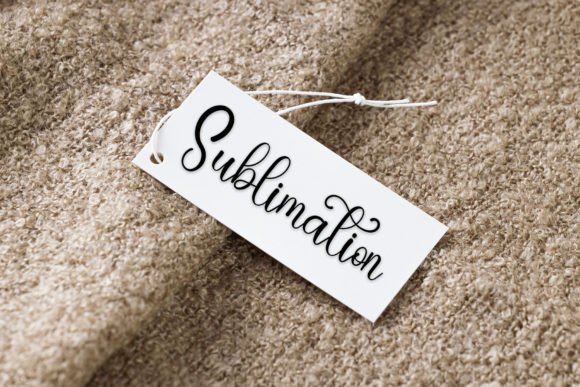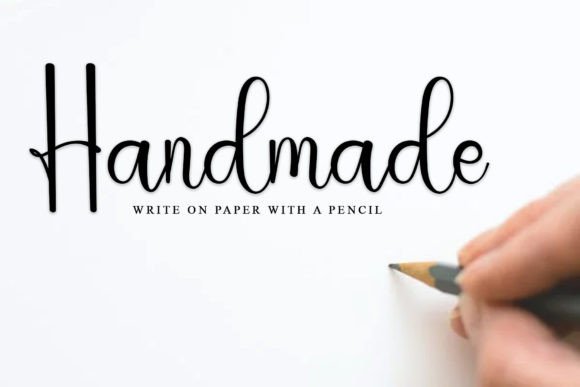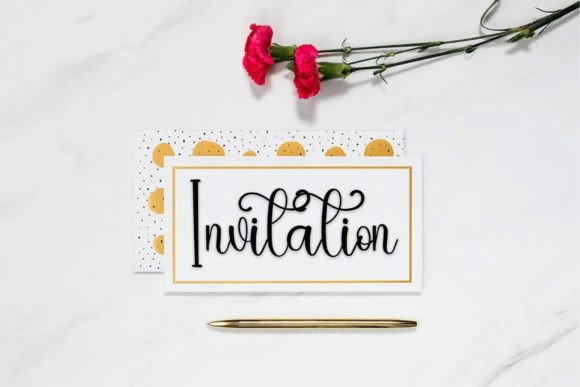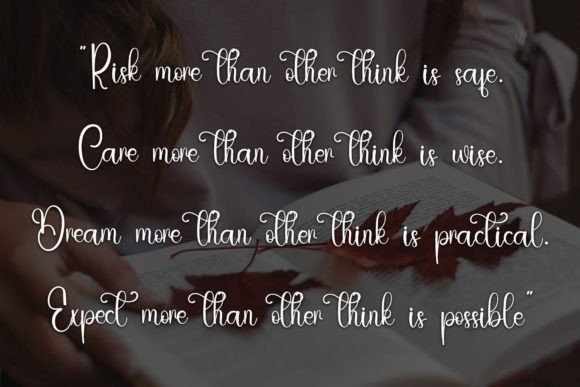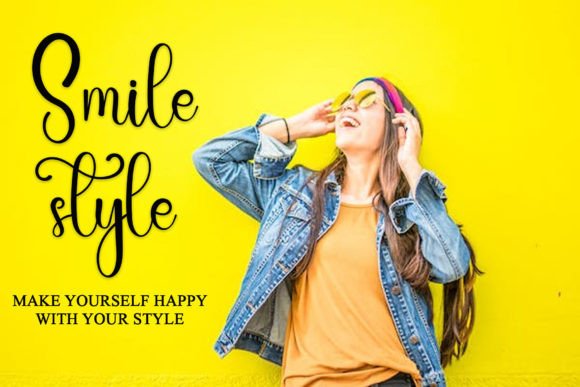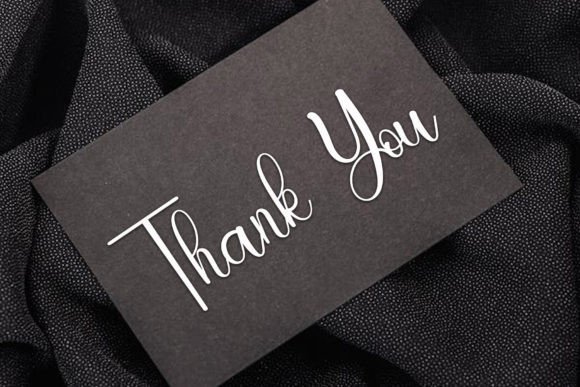
Discover the Charm of Autumn Break Font: Elevate Your Designs with Elegance
Are you on the hunt for a font that exudes sophistication, elegance, and a touch of modern flair? Look no further than the Autumn Break Font, a stunning handwritten typeface that is sure to capture your heart. Designed with meticulous attention to detail, this exquisite font seamlessly blends classic calligraphic influences with a contemporary twist, making it a perfect addition to your design arsenal.
The Essence of Autumn Break Font
Autumn Break Font is more than just a typeface; it’s an experience. Its elegant, flowing lines and carefully crafted letterforms evoke a sense of luxury and refinement, making it ideal for a wide range of design projects. Whether you’re working on a branding campaign, a wedding invitation, or a packaging design, this font is sure to bring a level of sophistication and style that sets your work apart.
What Makes Autumn Break Font Stand Out?
- Handwritten with Love: Autumn Break Font is a true gem, handcrafted with precision and passion. Each letter is a testament to the art of calligraphy, offering a personal touch that digital fonts often lack.
- Classy yet Contemporary: This font strikes the perfect balance between traditional calligraphic elegance and modern design sensibilities. It’s versatile, making it suitable for various design applications, from editorial to digital media.
- Highly Readable: Despite its elegant nature, Autumn Break Font doesn’t compromise on readability. Its clear and distinct letterforms ensure that your message is conveyed with clarity and style.
- Perfect for Creative Projects: Whether you’re a designer, a crafty DIY enthusiast, or a business owner looking to brand your products, Autumn Break Font is a fantastic choice. It’s perfect for creating stunning visual content that resonates with your audience.
How to Use Autumn Break Font in Your Projects
Integrating Autumn Break Font into your designs is incredibly straightforward. Here are a few ideas to get you started:
- Branding and Logos: Use Autumn Break Font to create a memorable logo or to develop a cohesive brand identity that speaks of luxury and sophistication.
- Stationery and Invitations: Add a touch of elegance to your wedding invitations, thank you cards, or business stationery with this beautiful font.
- Packaging Design: Elevate your product packaging with Autumn Break Font, making your products stand out on the shelves.
- Digital Content: Use it in your blog posts, social media graphics, or website headers to add a personal and stylish touch.
Tips for Pairing Autumn Break Font
To make the most of Autumn Break Font, consider pairing it with complementary fonts that enhance its beauty. Here are some tips:
- Contrasting Fonts: Pair Autumn Break Font with a clean, sans-serif font for a striking contrast that highlights the elegance of the handwritten font.
- Similar Elegance: For a more harmonious look, pair it with another elegant script or serif font. This creates a sophisticated and cohesive visual experience.
Autumn Break Font is a masterpiece that deserves a spot in every designer’s toolkit. Its unique blend of classic calligraphy and modern design makes it a versatile and stylish choice for a multitude of projects. Whether you’re aiming to create a stunning brand identity, design beautiful stationery, or craft eye-catching packaging, this font is sure to exceed your expectations. So, fall in love with Autumn Break Font and take your designs to new heights of elegance and sophistication.
Embrace the charm and elegance of Autumn Break Font in your next project. Your designs will thank you, and so will your audience.